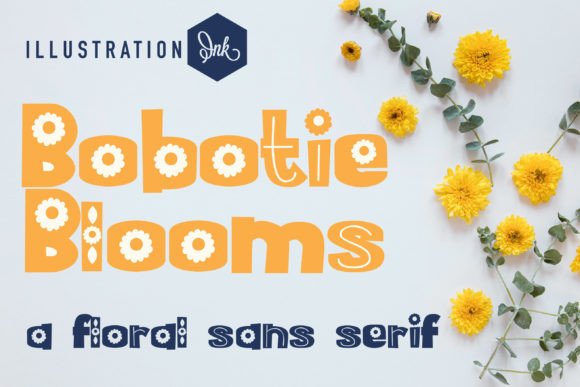
Introducing Bobotie Blooms Font, a whimsical and enchanting display font that will add a touch of personality to your creative projects. This hand-written sans serif font is playful, fun, and simply irresistible.
Picture this: Your designs transformed into masterpieces, adorned with the charm of Bobotie Blooms Font. This font is a breath of fresh air, bringing life to your posters, greeting cards, t-shirts, branding materials, quotes, and any other project you can dream of.
Let your messages bloom with beauty. Bobotie Blooms Font's unique boxy structure and delicate flowers create a visual symphony that captivates the eyes and speaks to the heart. Your designs will radiate joy, warmth, and a touch of whimsy.
With Bobotie Blooms Font, you're not just downloading a font; you're inviting magic into your creative world. It's the perfect companion for designers, crafters, and anyone who wants to add a personal touch to their projects.
Unlock the endless possibilities and let your imagination run wild. Bobotie Blooms Font is ready to elevate your designs to new heights of creativity. Embrace its charm and see your projects flourish like never before.